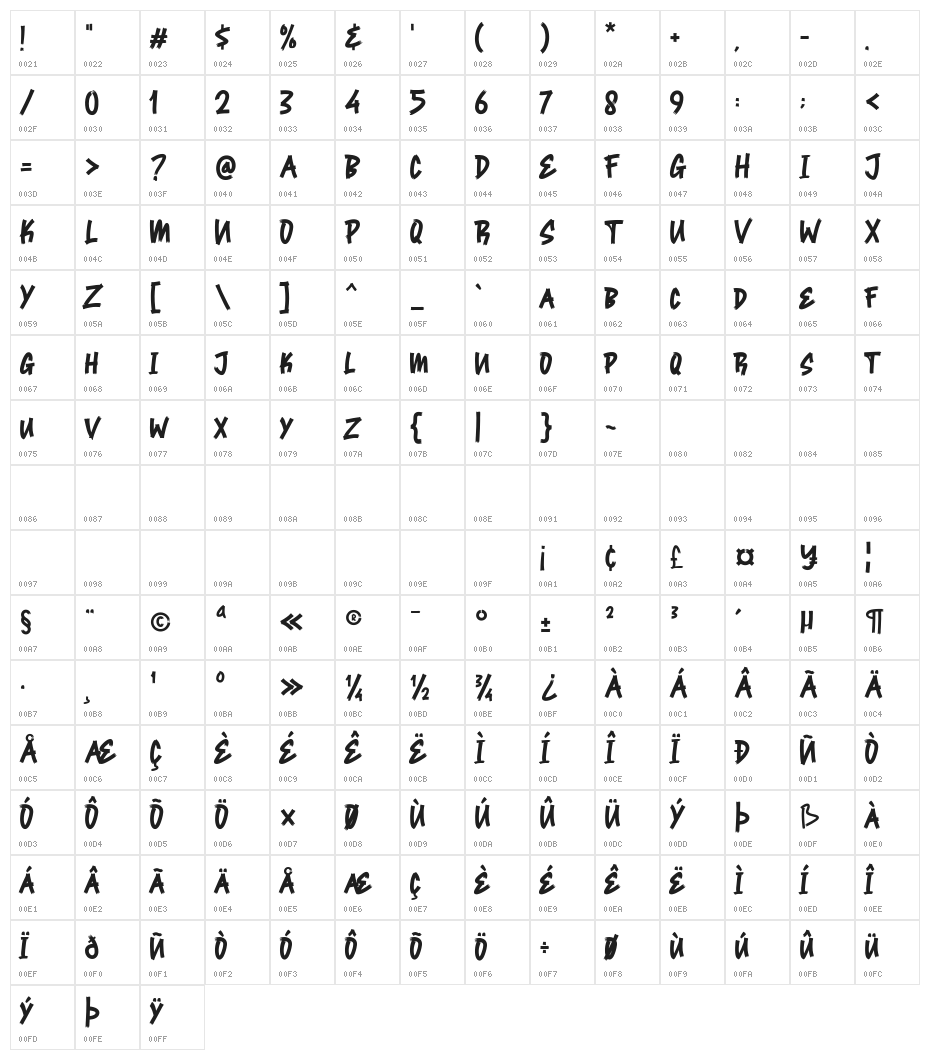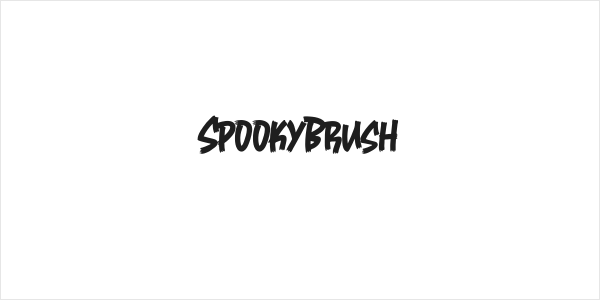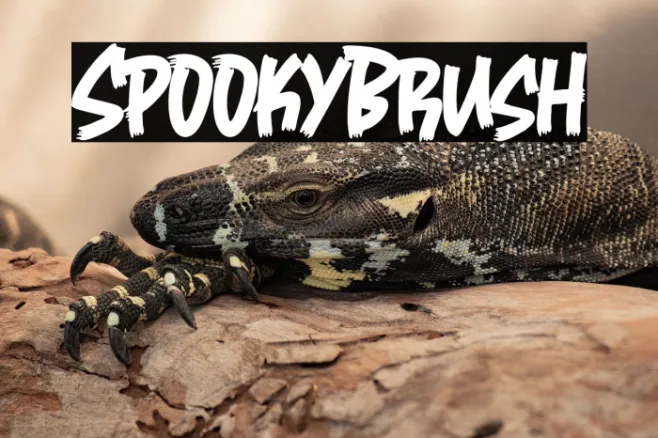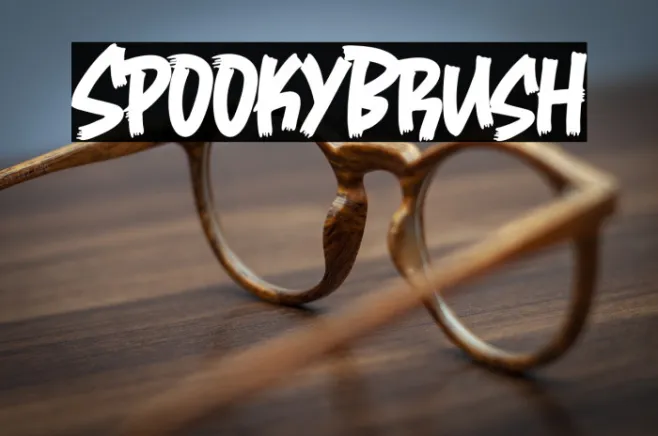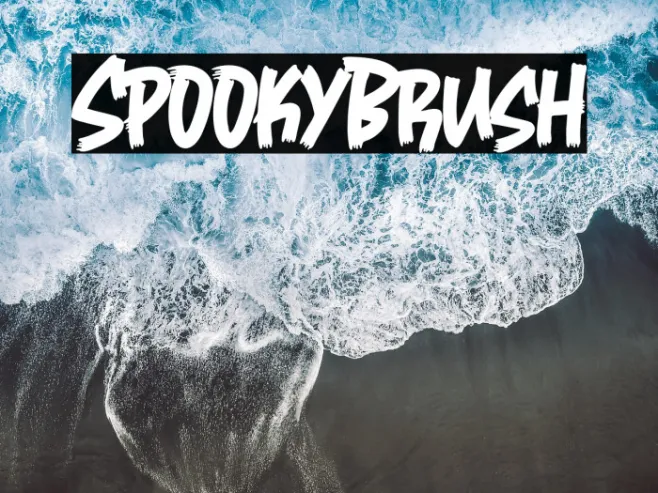
SpookyBrush Font
SpookyBrush Description
This font features a bold, brush-like style that exudes energy and dynamism. The strokes are thick and uneven, giving it a hand-painted appearance that is both expressive and eye-catching. The characters have a slightly jagged edge, enhancing the font's raw and edgy feel. This style is perfect for creating a sense of urgency or excitement, making it ideal for attention-grabbing headlines or creative projects. The uppercase and lowercase letters maintain a consistent style, while the numbers and special characters complement the overall aesthetic.
| Proposed Projects | Ideal for posters, event flyers, Halloween-themed designs, and any project requiring a bold, expressive typeface. |